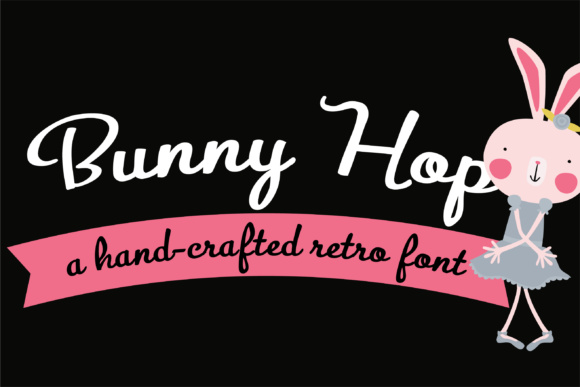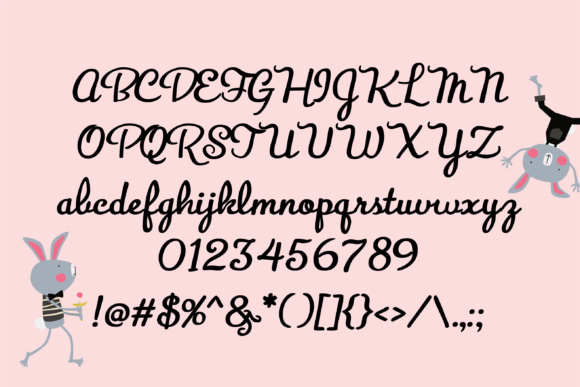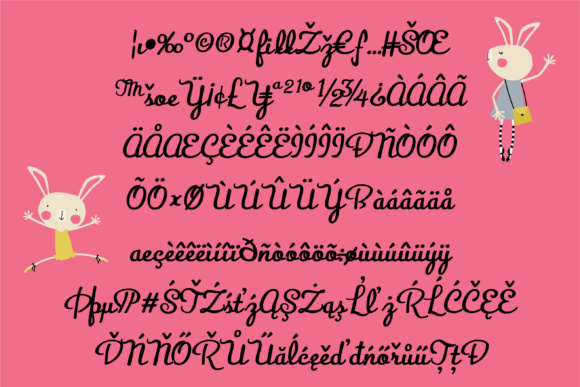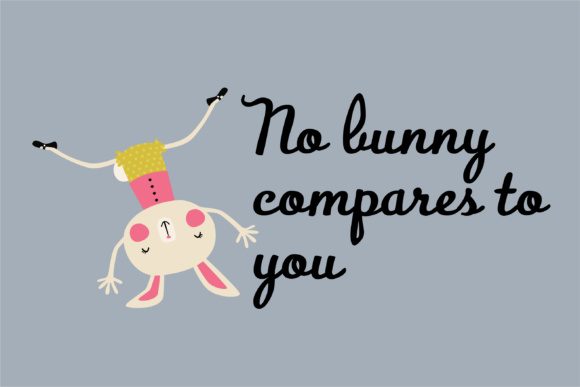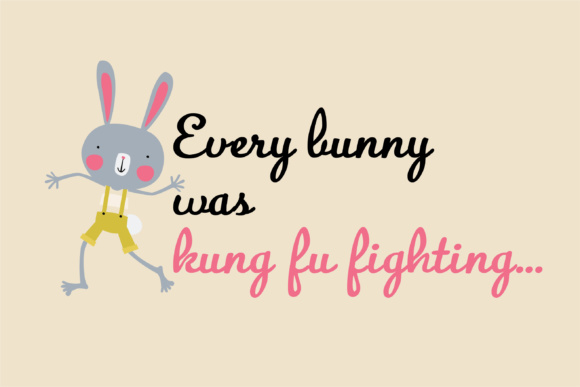
HomeScript FontsBunny Hop Font Script Fonts Bunny Hop Font FacebookXPinterestWhatsApp Bunny Hop Font Poster 2 Bunny Hop Font Poster 3 Bunny Hop Font Poster 4 Bunny Hop Font Poster 5 About Bunny Hop Font The Bunny Hop is a adorable script font that has a retro feel to it. DOWNLOAD ON CREATIVE FABRICAThis font is sold and delivered by Creative Fabrica. Font Canyon may earn a commission if you buy through this link. People also explored Lindra Font Astrud Miller Font Meloday Font Crazy Wish Font Victory Gustina Font Holiday Weekend Font Donate Font Galazate Font Worthy Sentences Font 339 0 TagsBunny Hop Font Previous articleNoNo FontNext articleLefty Author Font LEAVE A REPLY Cancel reply Comment: Please enter your comment! Name:* Please enter your name here Email:* You have entered an incorrect email address! Please enter your email address here Website: Save my name, email, and website in this browser for the next time I comment. Personal Use Free Lover Loves Personal Use Free Read more about this font Williana Personal Use Free Read more about this font Authurium Personal Use Free Read more about this font Lollipop Melody Personal Use Free Read more about this font BLOG Best Fonts for T-Shirt Design – Top 2025 Picks In 2025, t-shirt design has become more than just fashion—it's a form of self-expression. Whether you're... Fonts That Capture the Spirit of New York City Where to Buy American Fonts Online in 2024 To increase your work productivity, choose the most readable fonts.